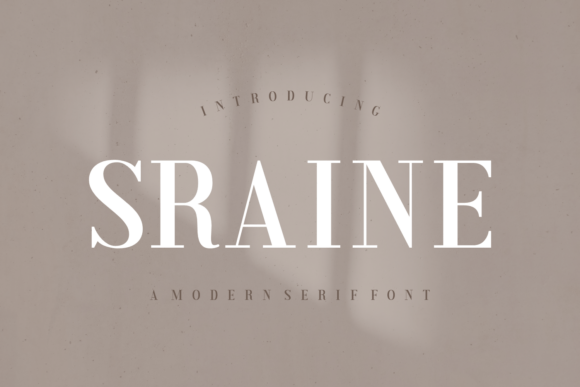
Sraine Font: Elevate Your Design with Elegance and Sophistication
In the world of typography, fonts play a crucial role in conveying the tone and personality of a brand, product, or message. Among the numerous fonts available, Sraine stands out as a beacon of elegance and sophistication. This beautiful serif font is designed to bring a touch of luxury and timeless beauty to any design project, making it perfect for high-end branding, editorial layouts, and formal invitations.
The Essence of Sraine Font
Sraine is more than just a font; it’s an experience. Its elegant curves and refined details are meticulously crafted to evoke a sense of luxury and refinement. The font’s balanced design ensures excellent readability, making it suitable for a wide range of applications, from body text to headings and titles.
One of the defining characteristics of Sraine is its serif design. Serifs, the small lines or flourishes at the ends of letters, are a hallmark of traditional typography. They provide a sense of history and classic elegance, which is precisely what Sraine embodies. However, unlike some traditional serif fonts, Sraine’s design is not overly ornate or heavy-handed. Instead, it strikes a perfect balance between classic sophistication and modern readability.
Applications of Sraine Font
Sraine’s versatility makes it an excellent choice for various design projects. Here are some of the ideal applications for this elegant font:
- Luxury Branding: For brands that want to convey a sense of high-end quality and sophistication, Sraine is an excellent choice. Its elegant design can elevate a brand’s visual identity, making it more memorable and prestigious.
- Editorial Layouts: In editorial design, the font plays a crucial role in enhancing the reader’s experience. Sraine’s readability and classic elegance make it perfect for magazines, newspapers, and books, adding a touch of sophistication to any editorial content.
- Formal Invitations: Whether it’s a wedding invitation, a gala, or a formal event, Sraine can add the right amount of elegance and class. Its refined details and balanced design ensure that the invitation looks prestigious and memorable.
Design Characteristics of Sraine Font
Sraine’s design is a masterclass in typographic elegance. Here are some of its key characteristics:
- Elegant Curves: Sraine features smooth, flowing curves that add to its luxurious feel. These curves are not just aesthetically pleasing but also contribute to the font’s readability.
- Refined Details: The font’s attention to detail is evident in its refined serifs and carefully crafted letterforms. These details give Sraine its distinctive look and feel.
- Balanced Design: Sraine’s design is meticulously balanced, ensuring that it looks great in both large and small sizes. This balance makes it versatile for various applications.
The Benefits of Using Sraine Font
Choosing Sraine for your design project comes with several benefits:
- Enhanced Readability: Sraine’s clear and balanced design ensures that your text is easy to read, making it perfect for long-form content.
- Timeless Appeal: Unlike trendy fonts that may quickly become outdated, Sraine’s classic design ensures that your work remains stylish and relevant for years to come.
- Versatility: Sraine can be used across various mediums, from digital platforms to print materials, making it a versatile addition to your typographic arsenal.
- Unique Identity: With Sraine, you can give your brand or project a unique and distinctive identity that sets it apart from others.
How to Use Sraine Font Effectively
To get the most out of Sraine, consider the following tips:
- Pair with Complementary Fonts: While Sraine is elegant on its own, pairing it with complementary fonts can enhance its beauty. Choose fonts that share similar characteristics or contrast nicely with Sraine.
Sraine is more than just a font; it’s a statement of elegance and sophistication. Its timeless beauty, combined with excellent readability, makes it an ideal choice for luxury branding, editorial layouts, and formal invitations. By incorporating Sraine into your design projects, you can elevate your work to new heights of typographic excellence. Whether you’re a designer looking for a font that exudes class or a brand aiming to make a lasting impression, Sraine is sure to meet your needs and exceed your expectations.
- What makes Sraine suitable for luxury branding? Sraine’s elegant design, refined details, and classic serifs make it perfect for luxury branding, as it conveys a sense of sophistication and high-end quality.
- Can Sraine be used for digital content? Yes, Sraine is versatile and can be used for both print and digital content. Its clear design ensures readability on various screens and devices.
- Is Sraine easy to read? Absolutely. Sraine’s balanced design and clear letterforms make it highly readable, even in smaller sizes.
- Can I use Sraine for body text? While Sraine is elegant enough for headings, its readability also makes it suitable for body text, especially in editorial and luxury content.